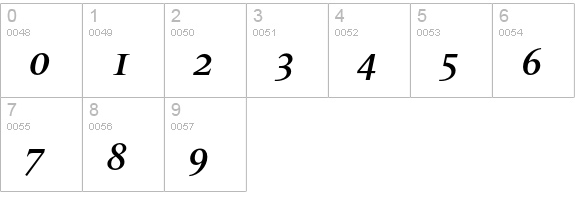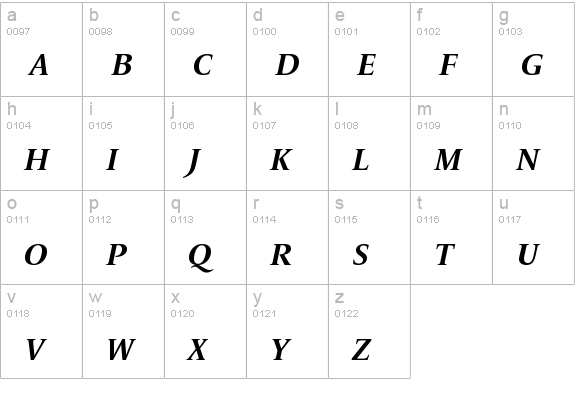
LeMondeLivre DemiItalic Small Caps font is a stunning typeface that exudes elegance and sophistication. With its sleek and modern design, it is the perfect choice for adding a touch of class to any project. The DemiItalic style adds a subtle emphasis to the text, making it visually engaging and captivating. What sets LeMondeLivre DemiItalic Small Caps font apart is not just its remarkable aesthetics, but also the fact that it is available for free. Yes, you read that right – this remarkable font can be freely downloaded at FontsMarket.com. This means that you can access this beautiful typeface without any cost or restrictions, allowing you to unleash your creativity without limitations. Whether you are designing a logo, creating a website, or working on a print project, LeMondeLivre DemiItalic Small Caps font will elevate your design to new heights. Its small caps feature adds a touch of sophistication, making it perfect for headlines, titles, and other prominent text elements. The characters of LeMondeLivre DemiItalic Small Caps font are meticulously crafted, with smooth curves and balanced strokes that create a harmonious visual composition. Its versatility allows it to be used in a wide range of design applications, from branding and advertising to editorial design and beyond. Overall, LeMondeLivre DemiItalic Small Caps font is a stunning typeface that combines elegance, style, and versatility. And the best part is that it is freely available to download at FontsMarket.com. So why wait? Take advantage of this incredible opportunity and add a touch of sophistication to your designs with LeMondeLivre DemiItalic Small Caps font.